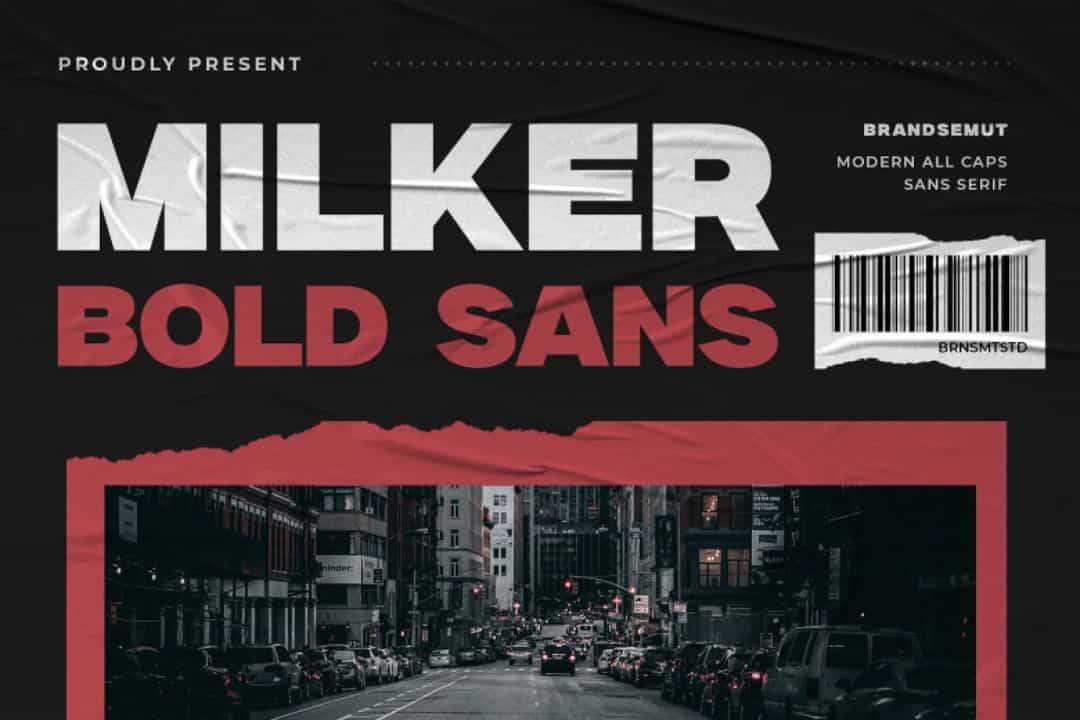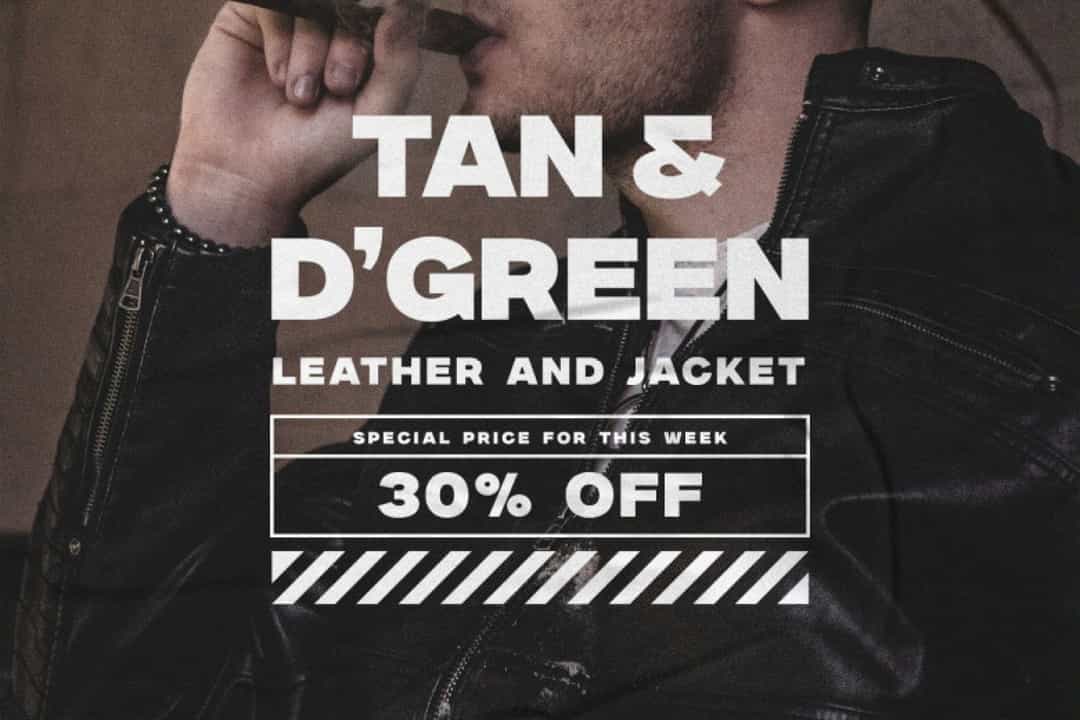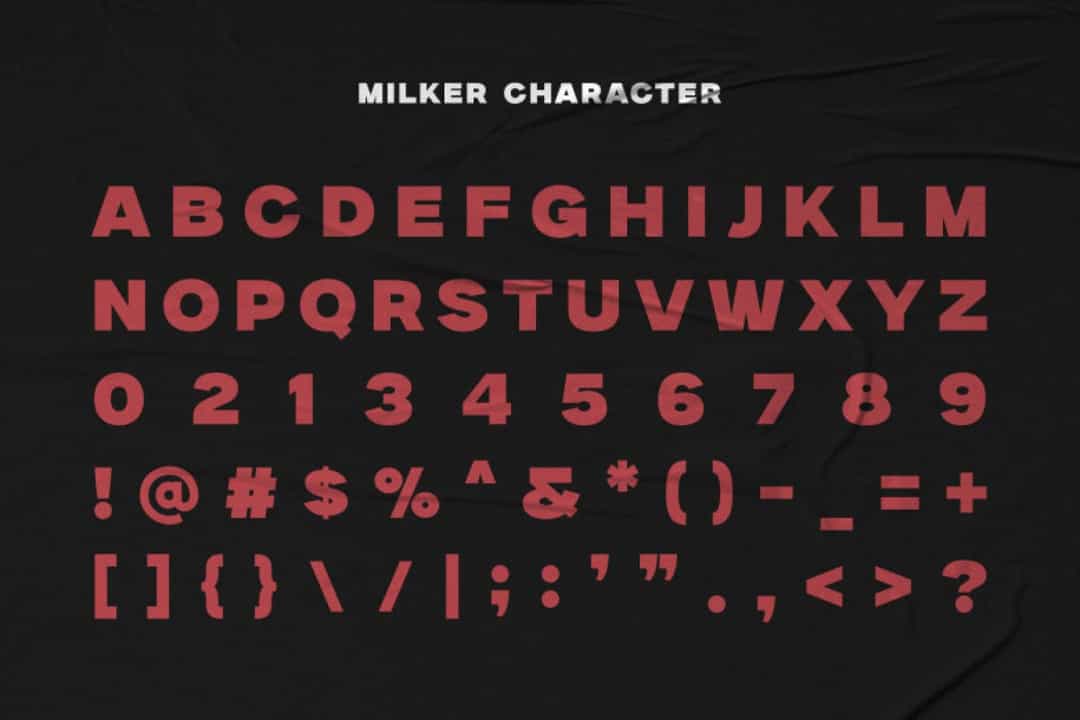
Milker is an eye-catching and modern sans serif font ideal for use as the backdrop to logos, headings, magazines, branding materials and invitations. With its clean style and elegant curves, Milker adds an air of sophistication to any project it graces.